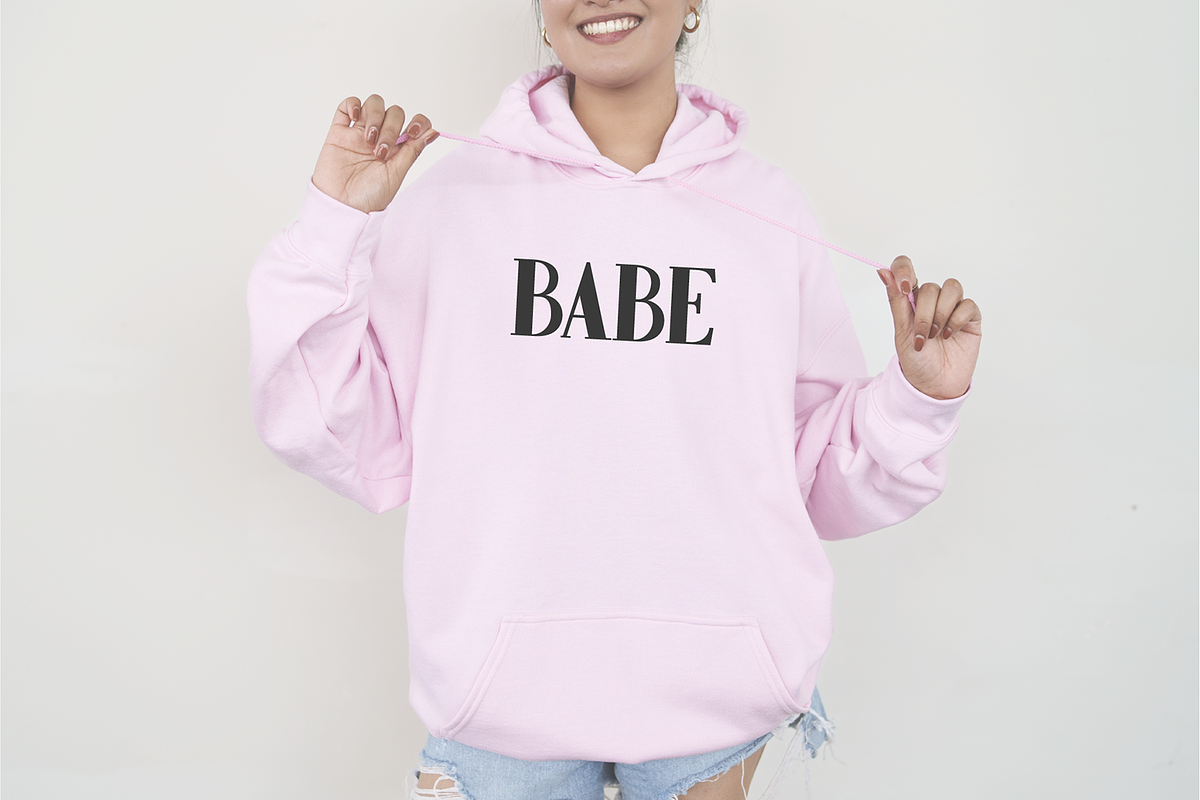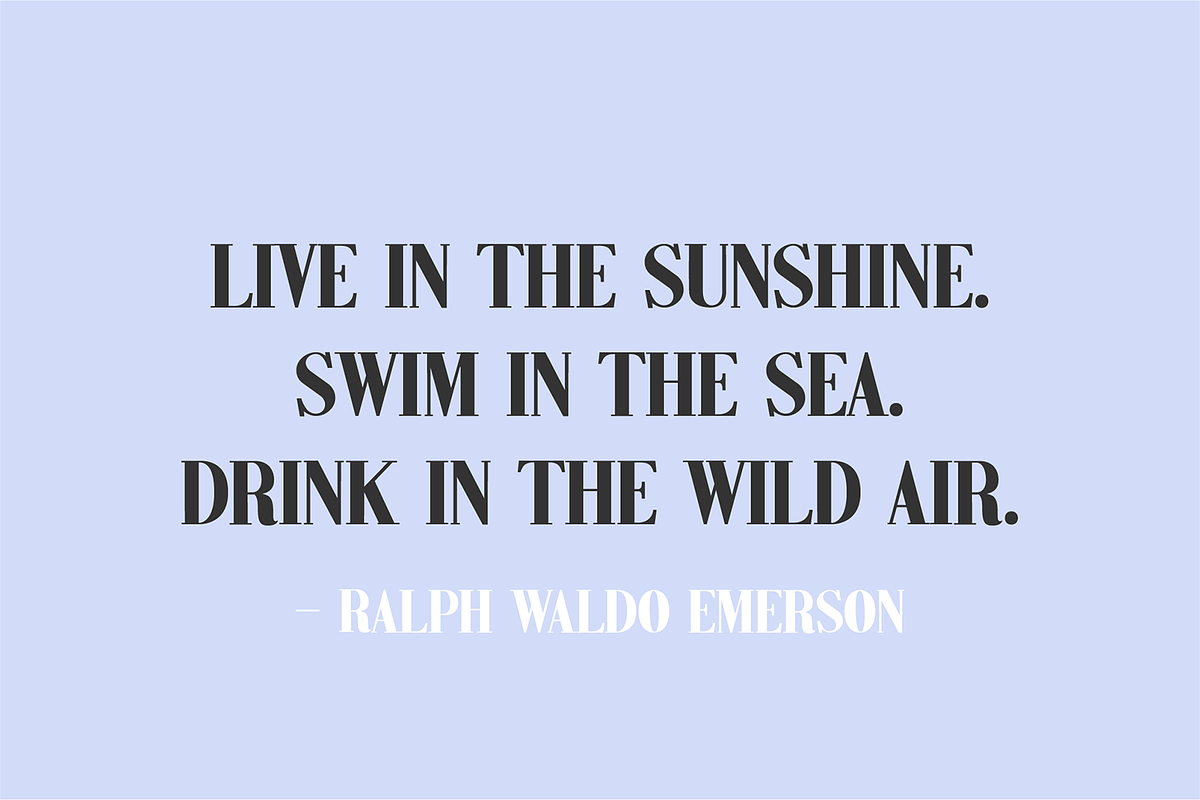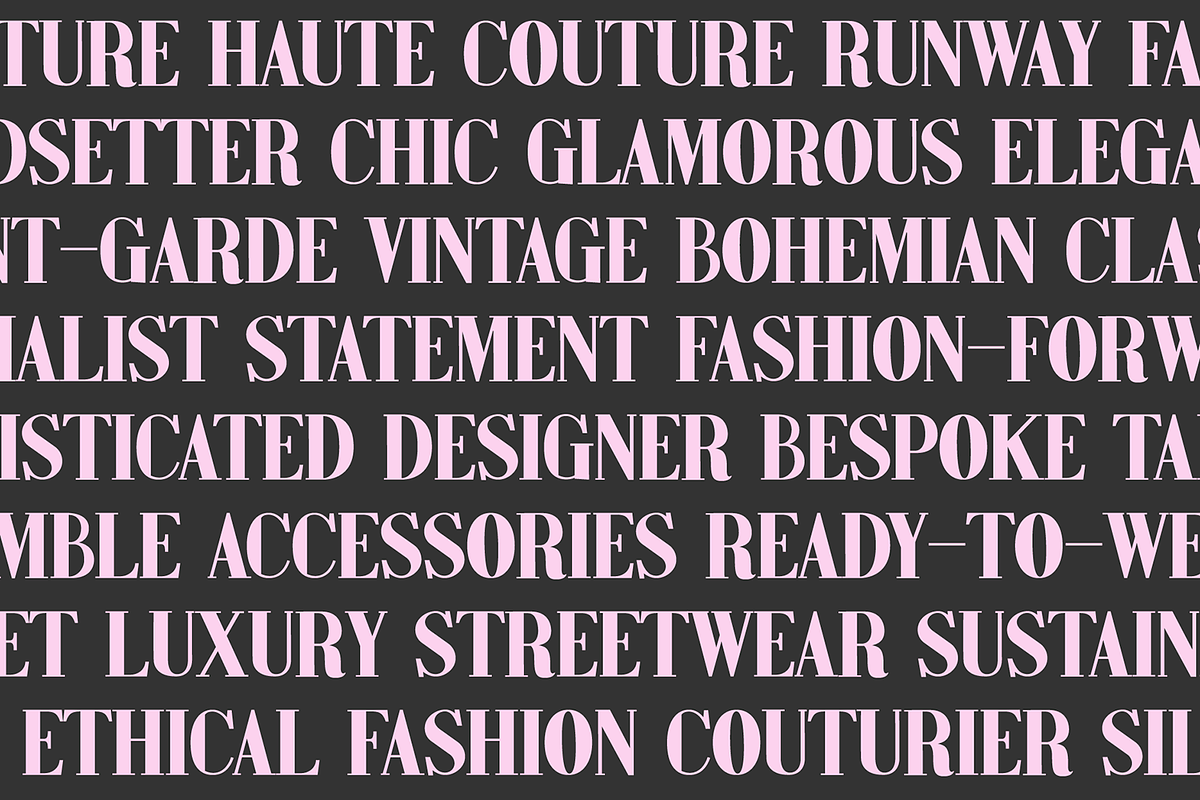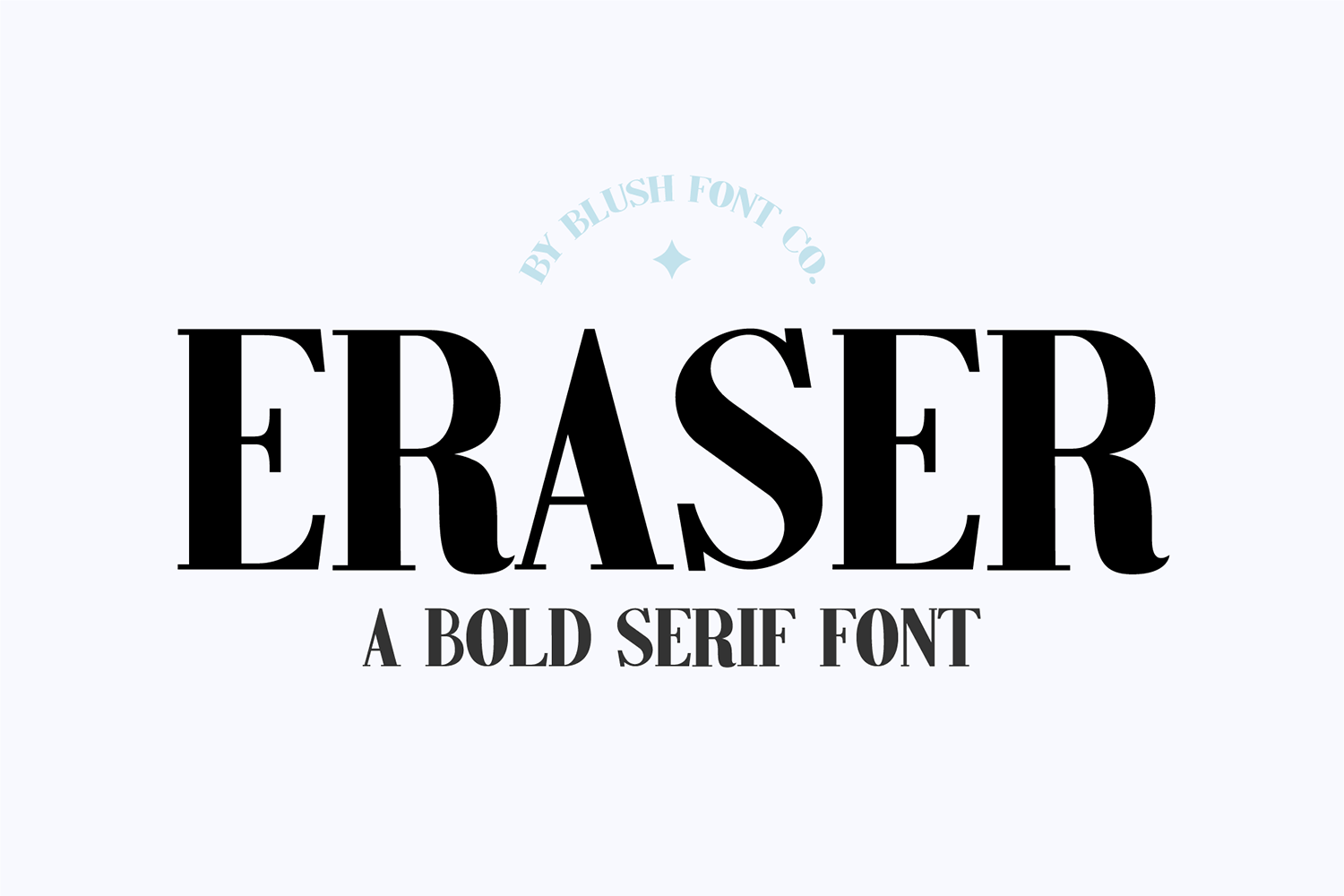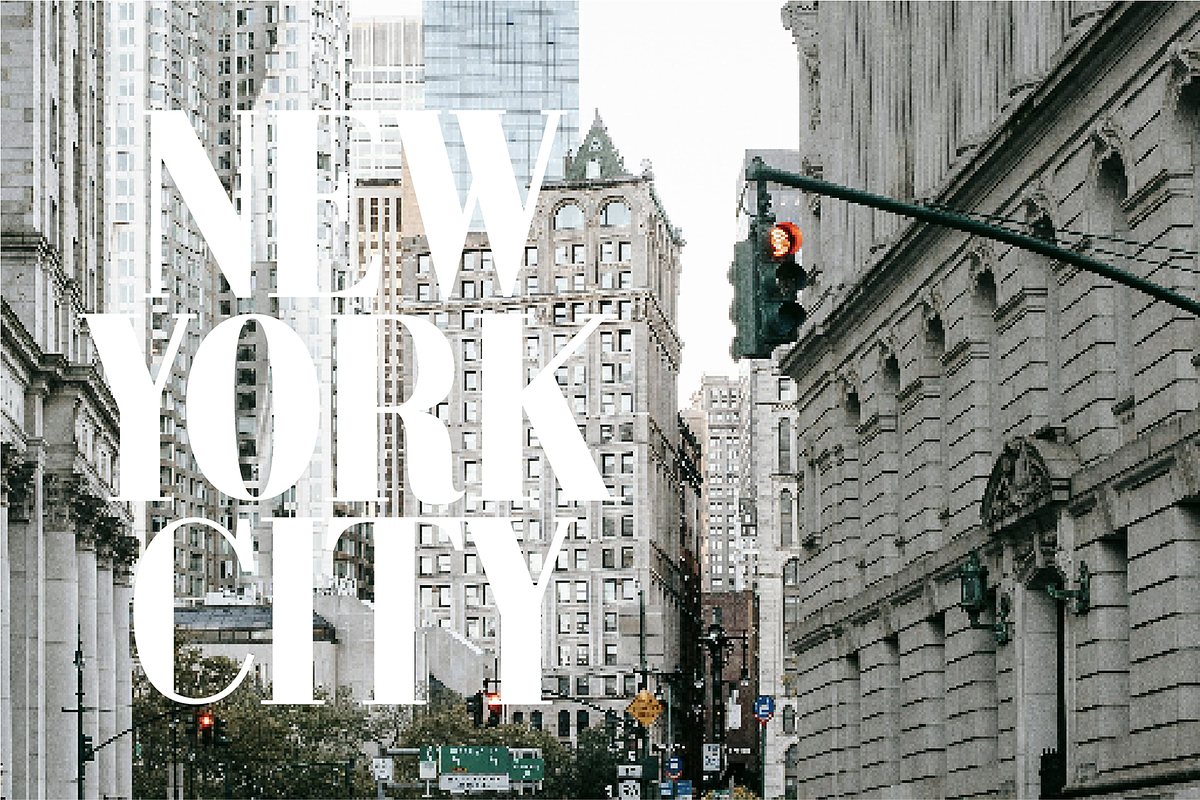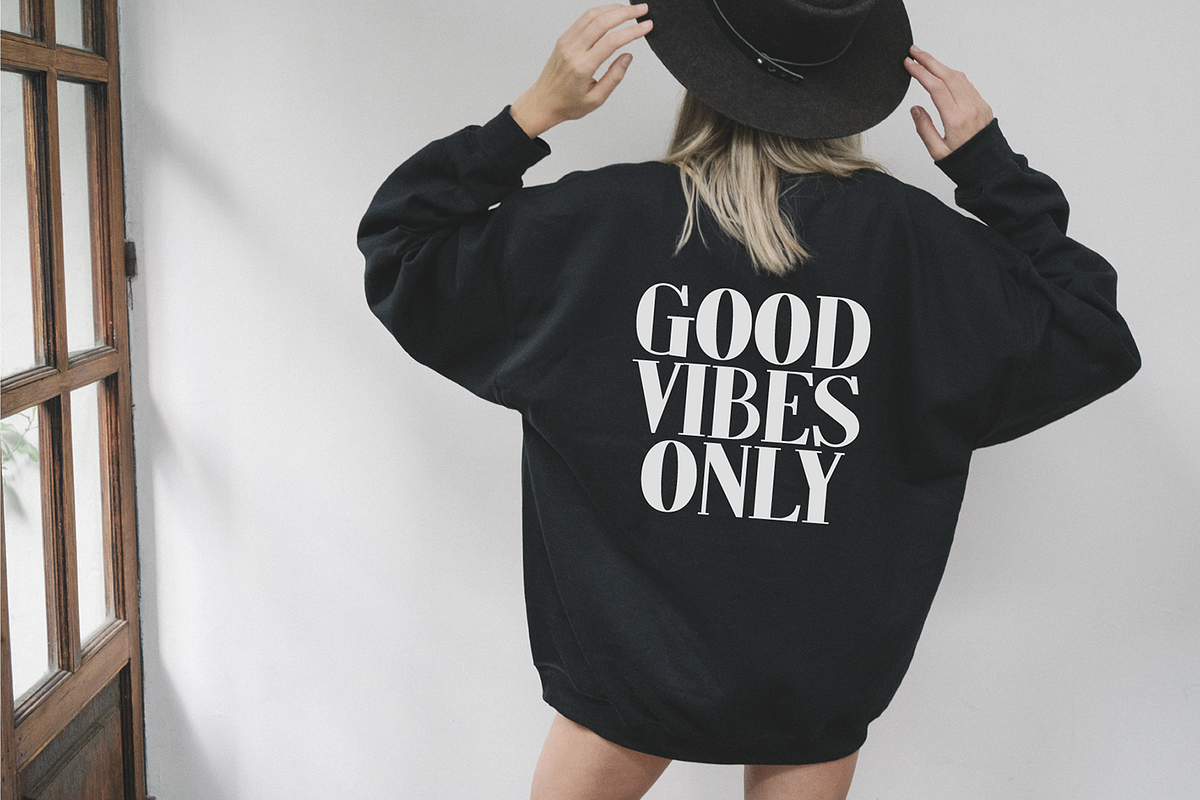
ERASER Modern Bold Serif Font
"Eraser" a bold modern serif display font.
This font is a bold display font that is perfect for wedding or crafty projects. Use it for branding, crafts for decor, invitations, and more! All caps glyphs, numbers, punctuation marks, and intl characters.